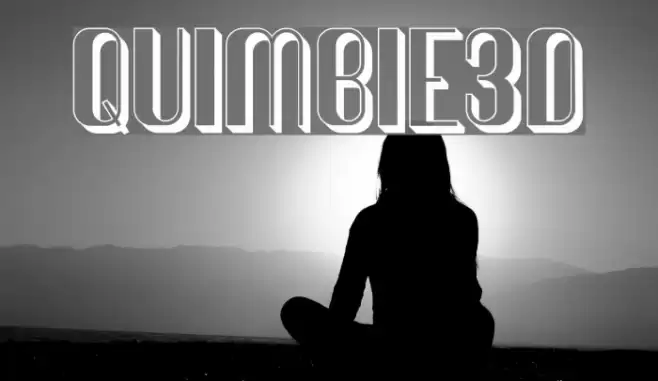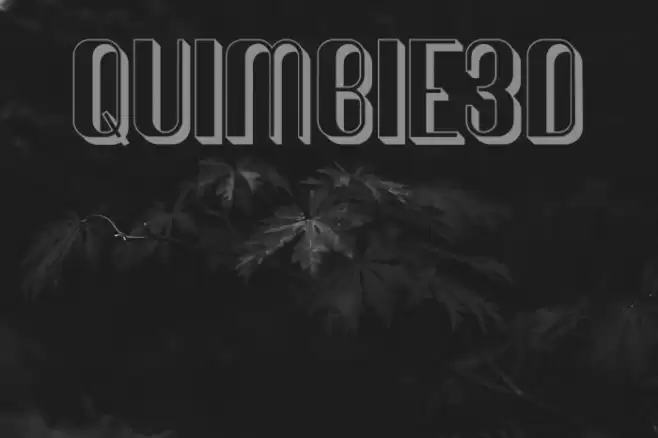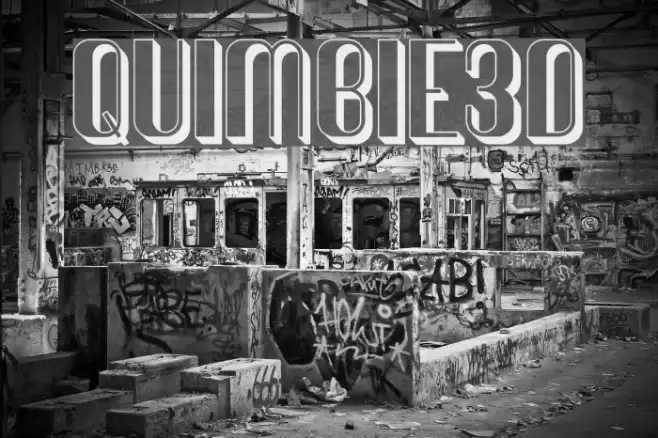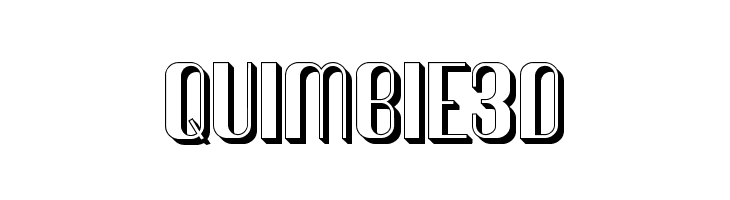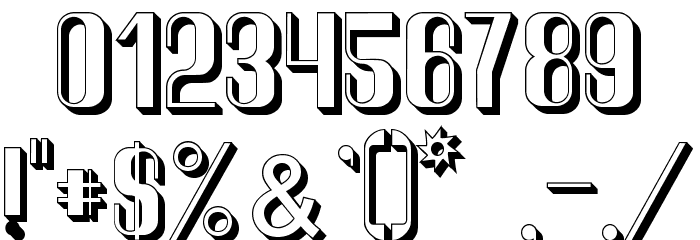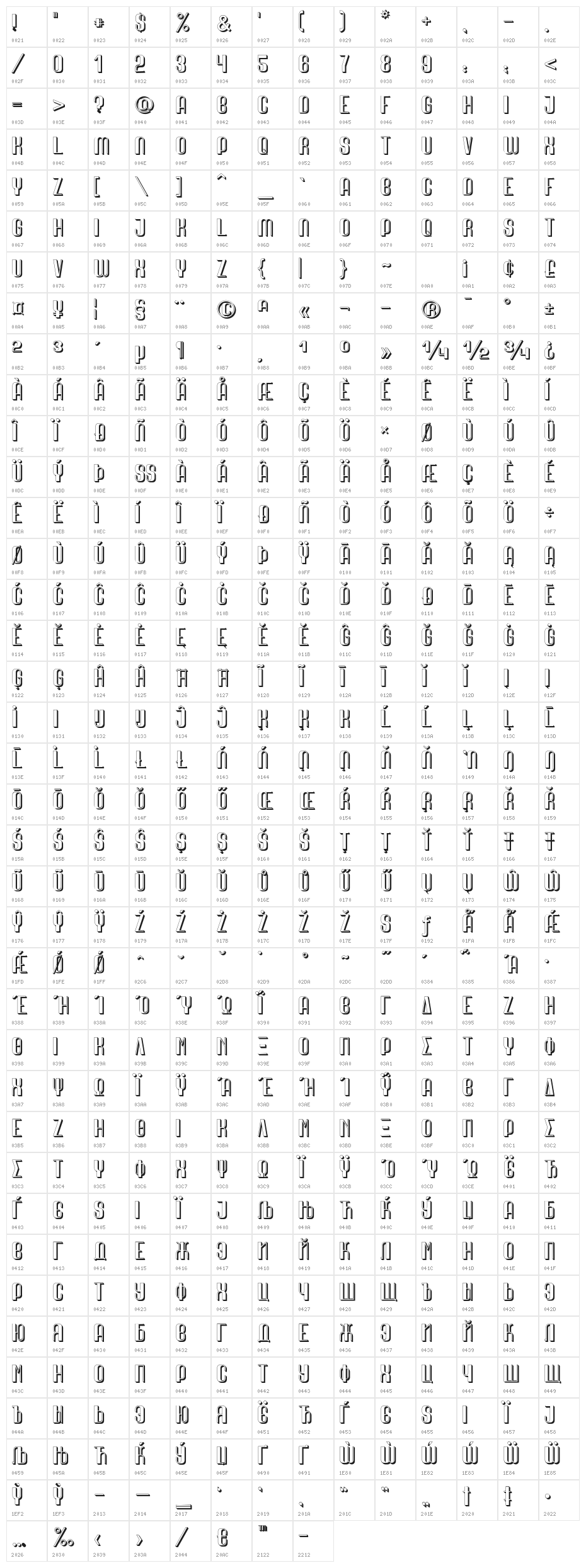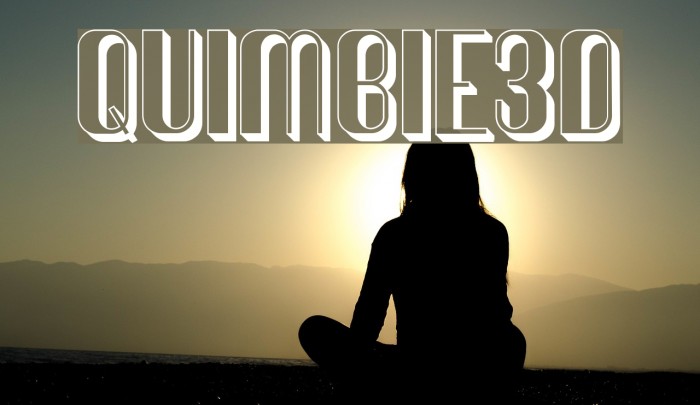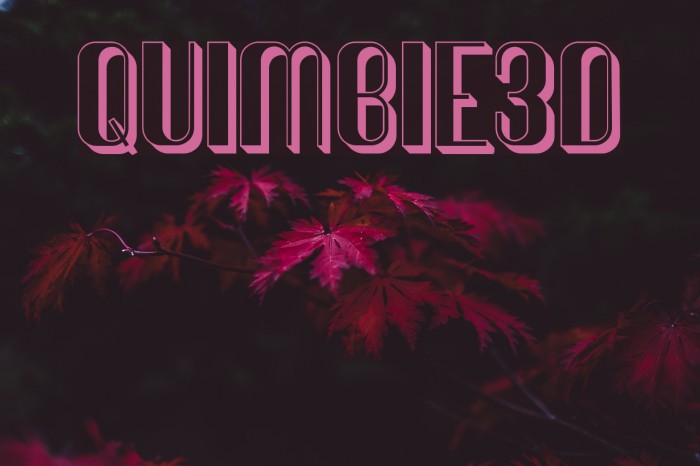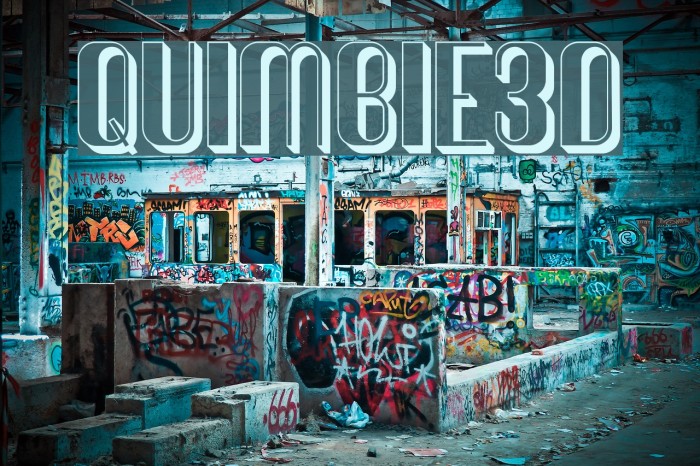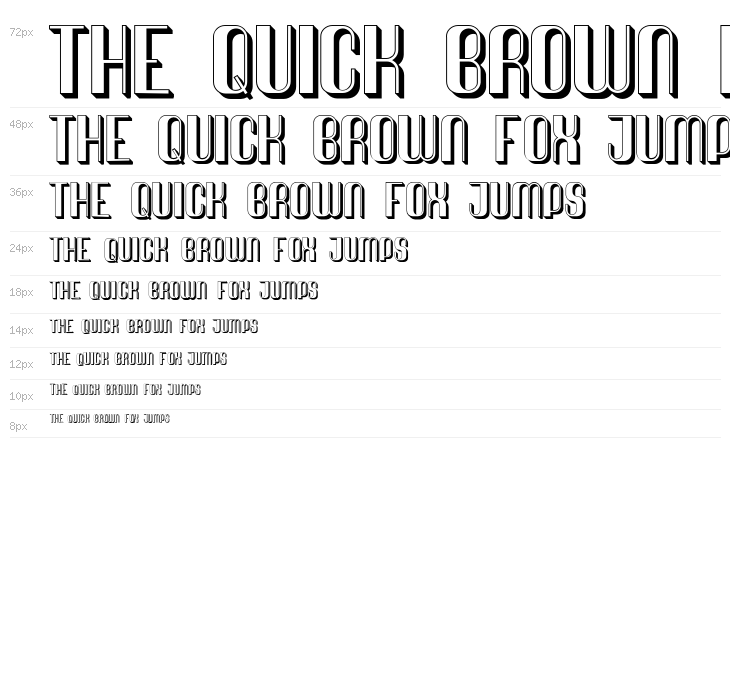
Quimbie3D Font
Quimbie3D Description
This font features a bold, three-dimensional design with a distinct shadow effect that gives each character a sense of depth and volume. The uppercase letters are tall and narrow, with rounded edges that soften the overall appearance. The numbers and special characters maintain this consistent style, ensuring a cohesive look across all glyphs. The font's unique 3D effect is achieved through a clever use of shading and outlines, making it stand out in any design. Its modern and playful aesthetic makes it suitable for eye-catching headlines and creative projects.
A bold, 3D font with a modern, playful aesthetic and distinct shadow effects from Uncategorized fonts.
- Proposed Projects: Ideal for posters, logos, branding, and any design requiring a striking, modern look.